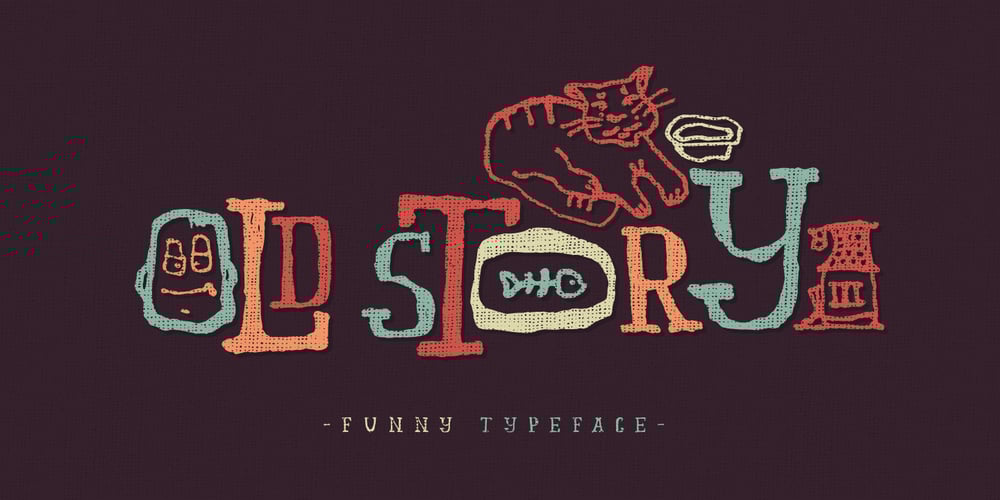
Old Story
Old Story font
Old Story Font Family was designed by Gleb Guralnyk and published by Gleb Guralnyk. Old Story contains 1 styles and family package options. Hello! Introducing “Old story” typeface with funny doodles. All the graphics you can access from the “glyphs” palette. Have fun!